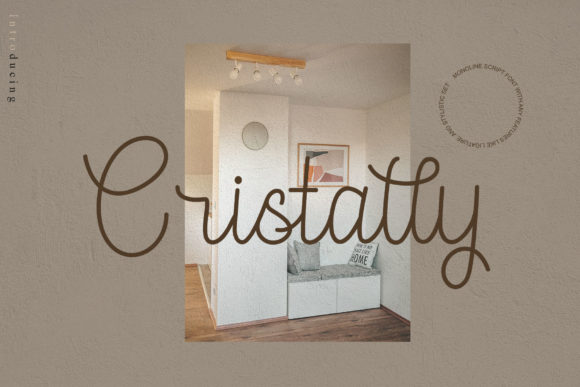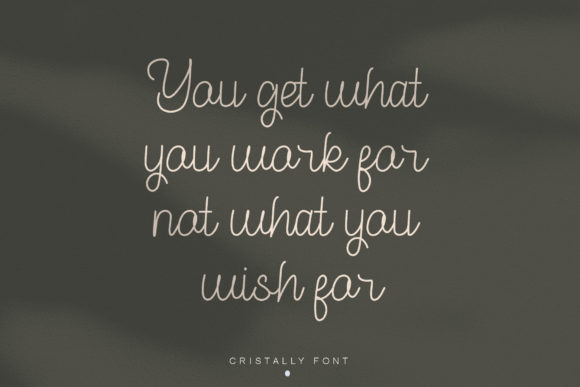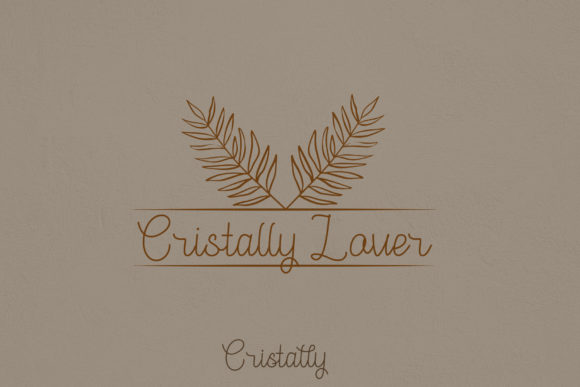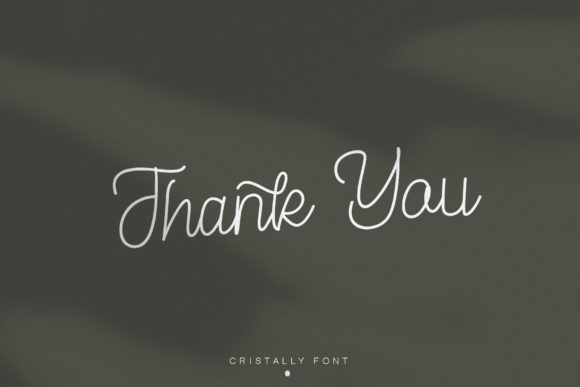
About Cristally Font
Cristally is a light and well balanced script font. This font is PUA encoded which means you can access all of the glyphs and swashes with ease!